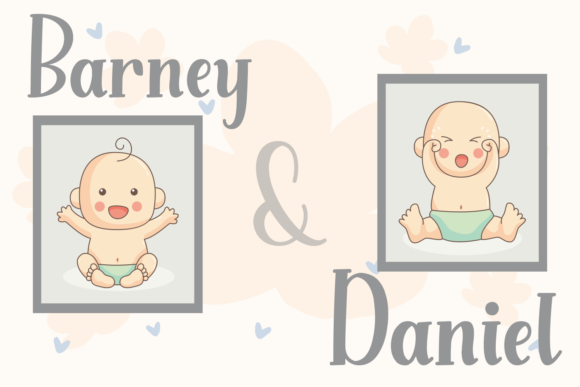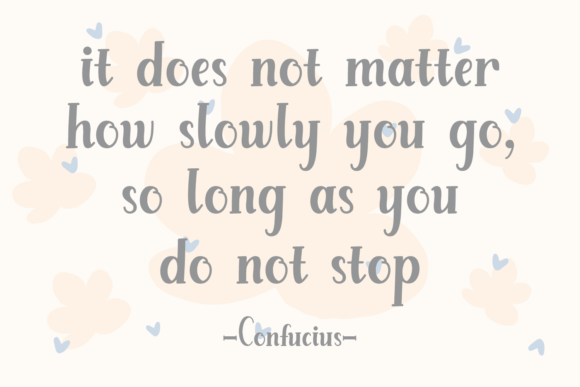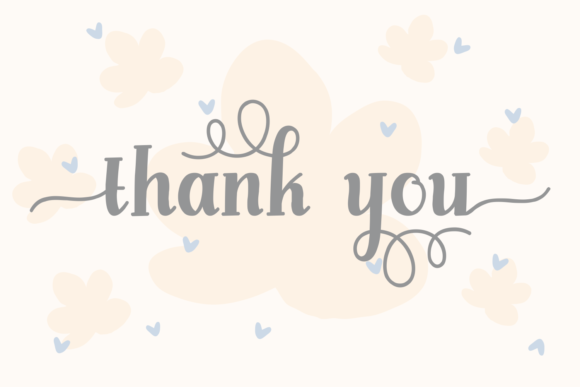
Discovering the Magic of Aynha Font
Have you ever sat at your desk, surrounded by scraps of paper, pens, and glue, and felt a spark of inspiration ignite within you? That’s exactly what happened to us when we stumbled upon the enchanting Aynha Font. This sweet, soft hand-lettered handwritten font has a way of transporting us to a world of elegance and whimsy, perfect for crafting one-of-a-kind wedding invitations, beautiful stationery, and eye-catching social media posts.
As a designer, you understand the importance of finding the perfect font to elevate your projects. That’s where Aynha Font comes in – a treasure trove of authenticity and charm that will make your creations stand out from the crowd. With its unique blend of modern and vintage elements, Aynha Font is an invaluable addition to any designer’s toolkit, waiting to be unleashed on your next creative project.
Aynha Font Key Features
- Font Family: Aynha is a unique and elegant script font, ideal for creating visually appealing and sophisticated designs.
- Unique Characteristics: Aynha’s distinctive script style features flowing connections, elegant flourishes, and subtle variations in letterform design, making it stand out in modern typography.
Aynha Font Review
Aynha Font is a beautiful, elegant script font that I had the pleasure of working with. ✨ One of the things that I really appreciate about this font is its versatility – it works well in both print and digital applications, and it’s particularly stunning in titles and headings.
Another strength of Aynha Font is its high-quality rendering, which makes it look crisp and clean even at small sizes. ✨ The font also comes in a range of weights, from light to bold, which gives designers a lot of flexibility when it comes to creating visually appealing typography.
- ⚠️ Aynha Font may not be the best choice for body text, as it can be difficult to read at very small sizes. This is due to the font’s script nature, which can make it harder to decipher at very small sizes.
- ⚠️ The font’s high-end look and feel may not be suitable for all types of projects, particularly those with a more casual or informal tone.
Overall, I think Aynha Font is a fantastic addition to any designer’s toolkit. While it may have some limitations, its strengths far outweigh its weaknesses, and it’s a great choice for designers who want to add a touch of elegance and sophistication to their work.
Aynha Font Practical Application Guide
Tips for Getting the Most Out of Aynha Font
For optimal results, use Aynha Font in headings and titles to create a clear visual hierarchy. Experiment with different font sizes and colors to add emphasis and create visual interest.
Aynha Font is ideal for creative projects, such as:
- Graphic design
- Typography-based artwork
Alternatives to Aynha Font for Designers
Montserrat is a sans-serif font designed by Julieta Ulanovsky. It is a great alternative to Aynha Font for body text and headings in digital products. Montserrat is more versatile and has a wider range of weights, making it suitable for a variety of design projects.
Comparison to Aynha Font: Montserrat is more geometric and modern, while Aynha Font has a more elegant and sophisticated feel. Montserrat is also more widely available and has better support for digital platforms.
Inter is a sans-serif font designed by Rasmus Andersson. It is a great alternative to Aynha Font for clean and minimalist designs. Inter is highly legible and has a neutral aesthetic, making it suitable for a wide range of design projects.
Comparison to Aynha Font: Inter is more modern and clean, while Aynha Font has a more classic and elegant feel. Inter is also more versatile and has a wider range of weights, making it suitable for a variety of design projects.
Merriweather is a serif font designed by Eben Sorkin. It is a great alternative to Aynha Font for body text and headings in print materials. Merriweather has a classic and elegant feel, making it suitable for a wide range of design projects.